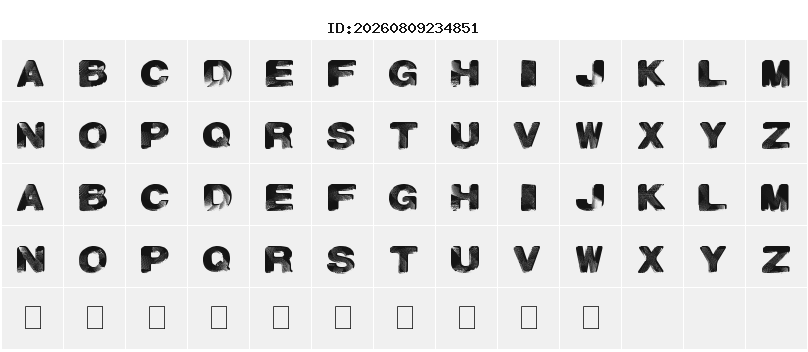
• Font Name: PaintNight
• Designer: Xerographer Fonts Max Infeld
• Description: Made at Xerographer Studios in San Francisco,CA
About PaintNight.ttf
PaintNight.ttf is a modern, elegant sans-serif font designed for ultimate readability and visual harmony. Perfect for branding, headlines, web design, and print materials.